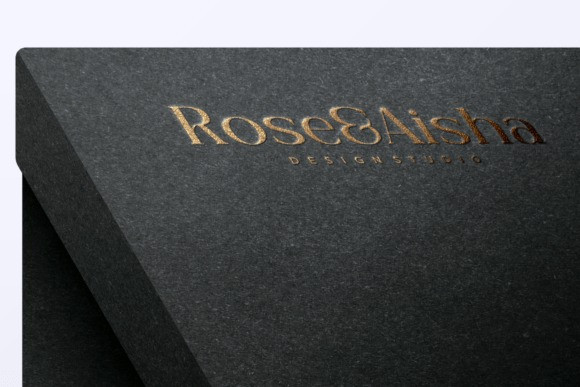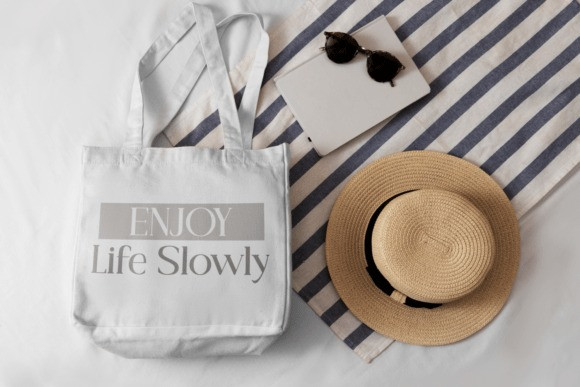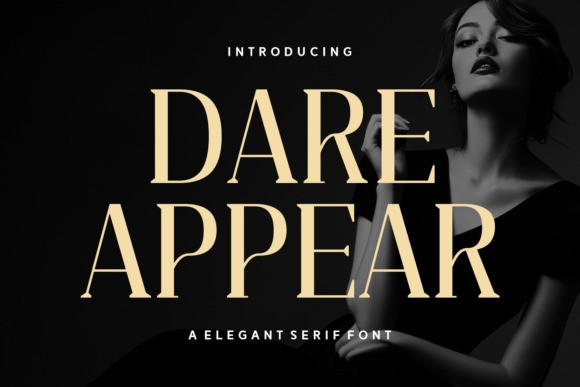
Dare Appear Font
Dare Appear Font, an elegant serif font. A sophisticated, high-fashion photograph of a woman complements the font’s bold, chic, and confident character, making it ideal for high-end branding and editorial use.